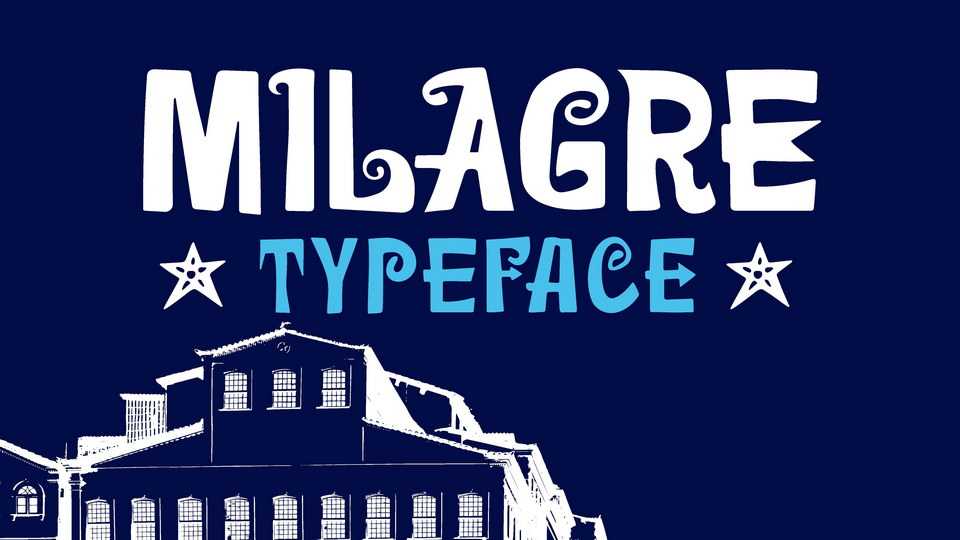
Download Milagre font,, a decorative display typeface based on a tile panel installed at Fundação Casa de Jorge Amado, located in Largo do Pelourinho, Salvador
Designer: Genilson Santos